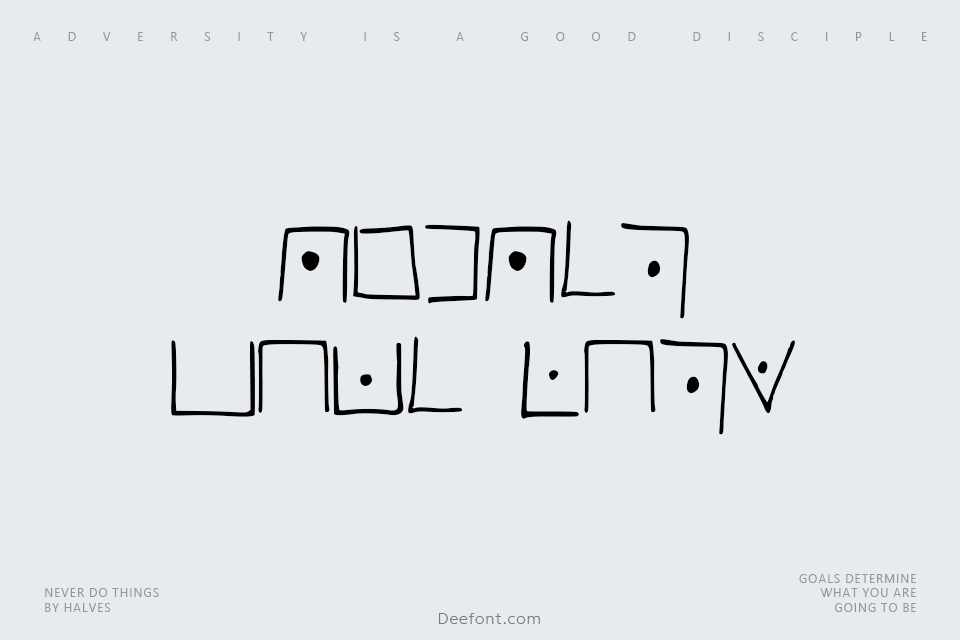
PigPen Code Font
PigPen Code Font is a captivating dingbat typeface designed by Jasmine Croser that brings the enigmatic Pig Pen Cipher to digital design. This distinctive font features geometric symbols reminiscent of ancient hieroglyphics and secret codes, offering a unique visual language perfect for mysterious and creative projects. With its raw, handcrafted aesthetic and diverse array of shapes, the font excels in branding, packaging, and editorial design. Its versatile applications span fantasy, sci-fi, and occult-inspired themes, making it an ideal choice for designers seeking to infuse projects with artisanal flair and intrigue.